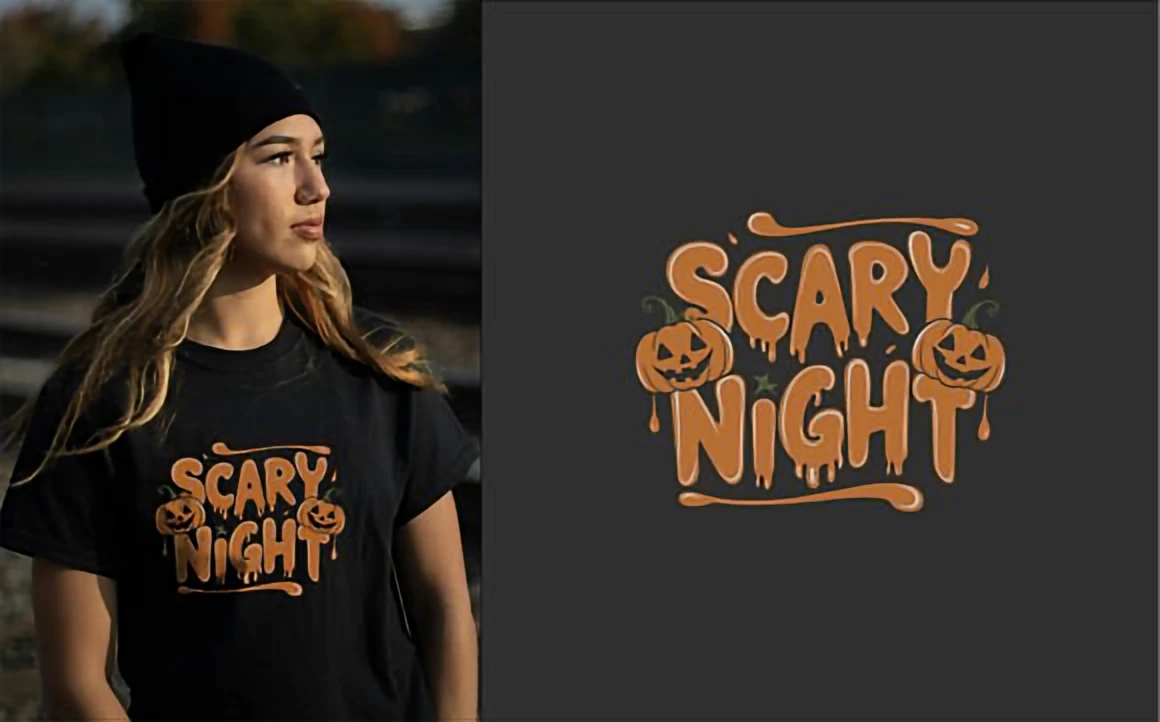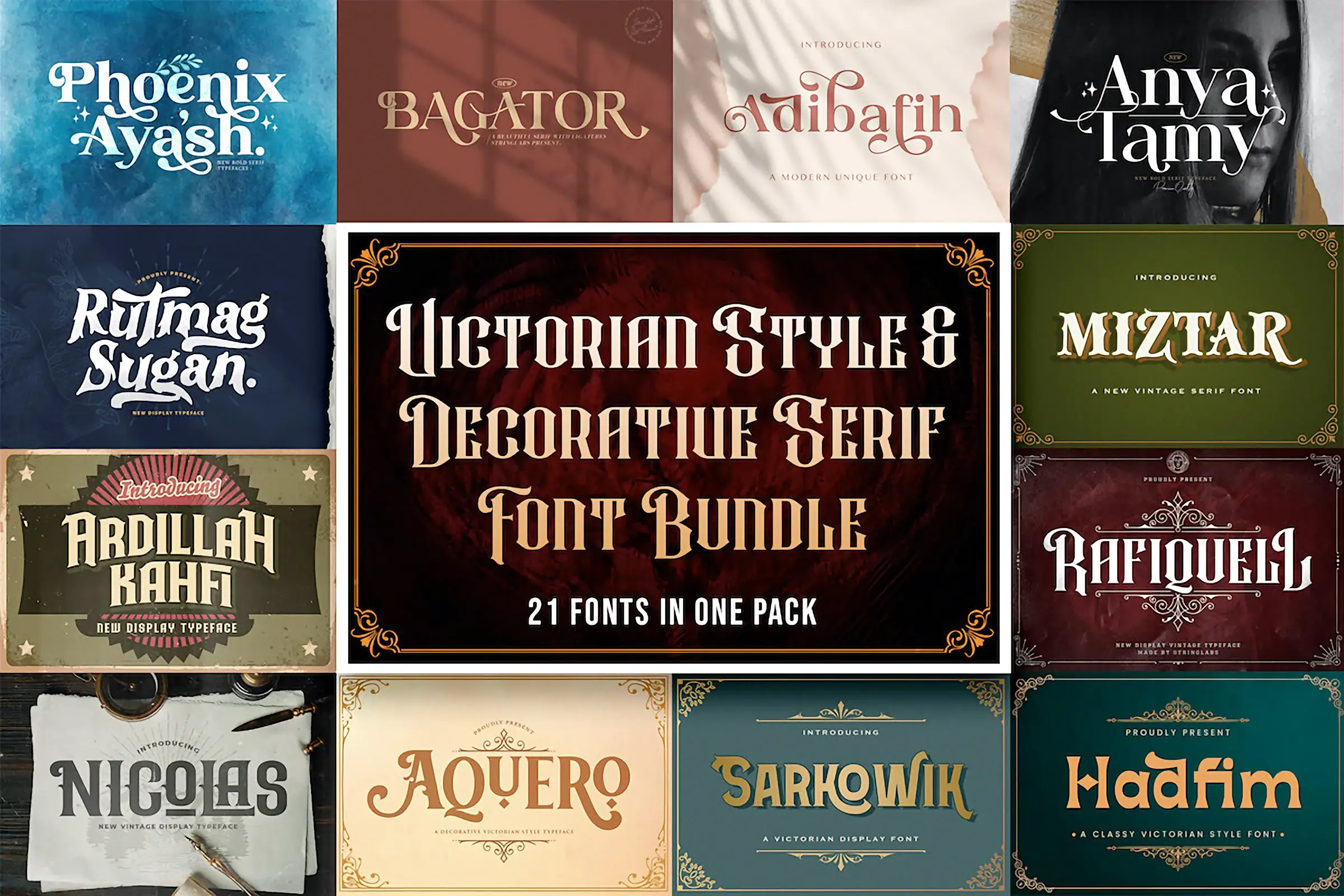
Looking for cool fonts for T-shirts? You’re in luck! Standout T-shirt designs often use eye-catching fonts, especially for retro, groovy, urban, or decorative styles. If you’re selling print-on-demand, running an Etsy shop, or doing merchandise branding, the right font can make a simple tee into something special.
Whether you’re making motivational shirts, 70s designs, grunge streetwear, boho sayings, or festival merch, this article has strong fonts that will make your projects better. Check out these T-shirt-ready fonts that really grab people’s attention.
1. Retro Thunder Font – Retro Display Script
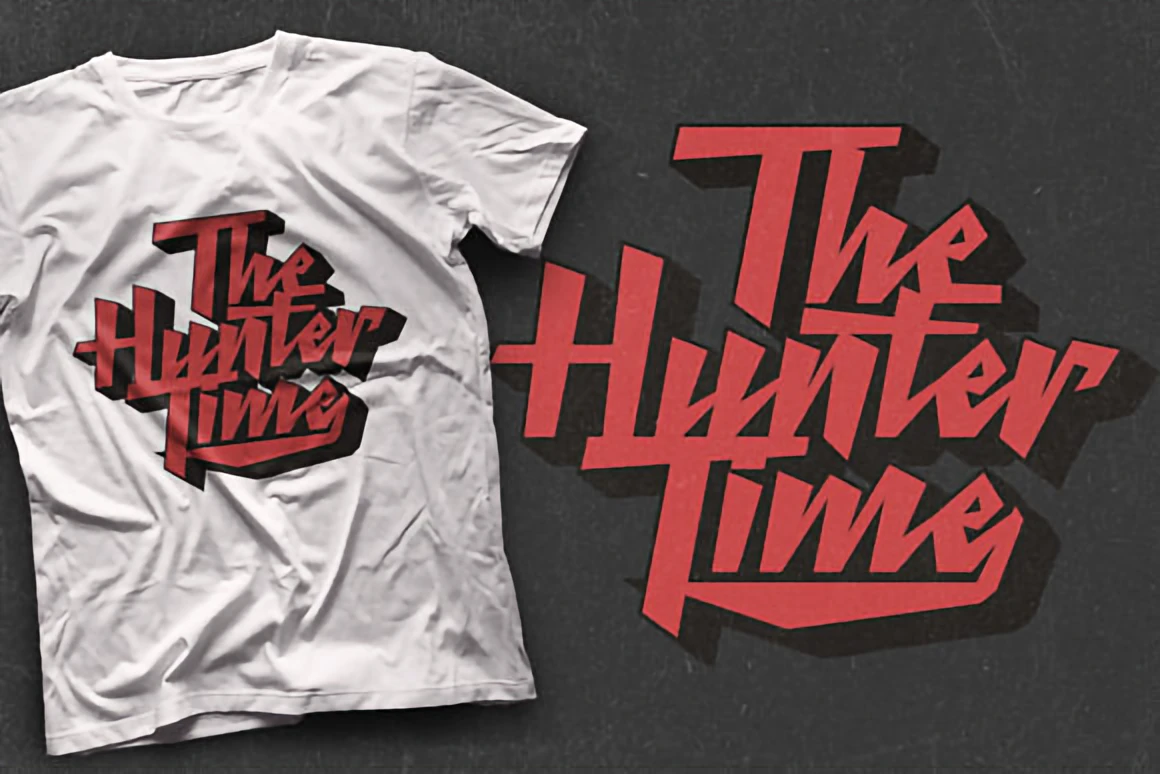
Retro Thunder Font is a cool retro script font for T-shirts wanting a bold, lively, vintage feel. Its curves and rough edges are great for apparel with an 80s or 90s look, surfwear companies, old-school sports tees, and graphics needing that hand-lettered touch. This font mixes brush script style, strong lines, and a raw, old-fashioned feel. It’s perfect for designers who enjoy using retro T-shirt fonts to create prints that pop.
Retro Thunder Font is very useful for inspirational quote tees, classic retro sayings, and branding for lifestyle brands.
Best for:
- Retro surfwear & adventure apparel
- Vintage sports T-shirts
- Hand-lettered quote tees
- Streetwear print design
Why designers love it:
- Dynamic brush movement
- Natural textured strokes
- Authentic vintage script feel
- Easy to pair with sans serif fonts
2. Big Giant – Chunky Cartoon Display
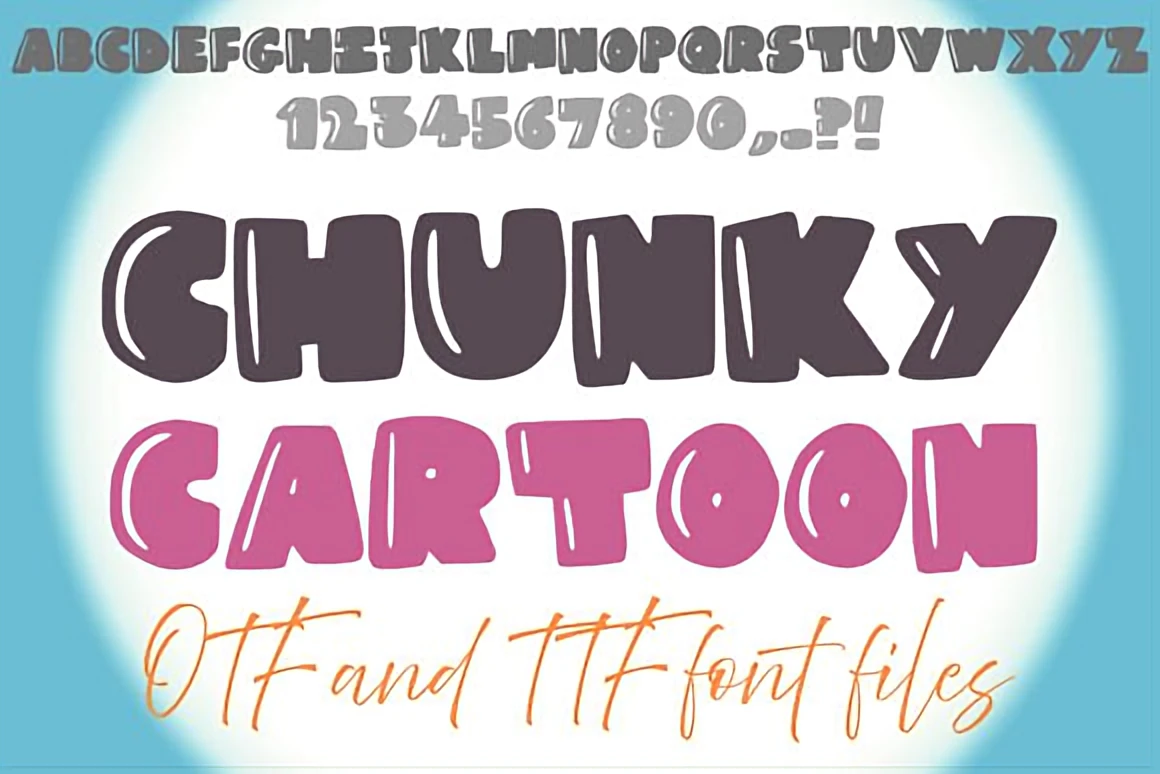
Big Giant is a fun, oversized chunky cartoon display font perfect for bold T-shirt graphics. With bubbly, rounded characters and a high-impact silhouette, it shines in kids’ designs, festival merch, urban cartoon tees, and any project needing playful display energy. This font taps into the bubble letter trend, making it one of the best creative display fonts for designers who want approachable, friendly, upbeat typography. It’s fully optimized for Cricut cutting, DTG, sublimation, and vinyl projects—making it a top choice for print-on-demand sellers.
Best for:
- Kids & family T-shirts
- Cartoon-themed apparel
- Bold motivational tees
- Kawaii & playful merch
Why designers love it:
- Big, eye-catching shapes
- Works great in one-color prints
- Cute, friendly character design
- Highly legible at large sizes
3. Varsity Team – Athletic College Serif
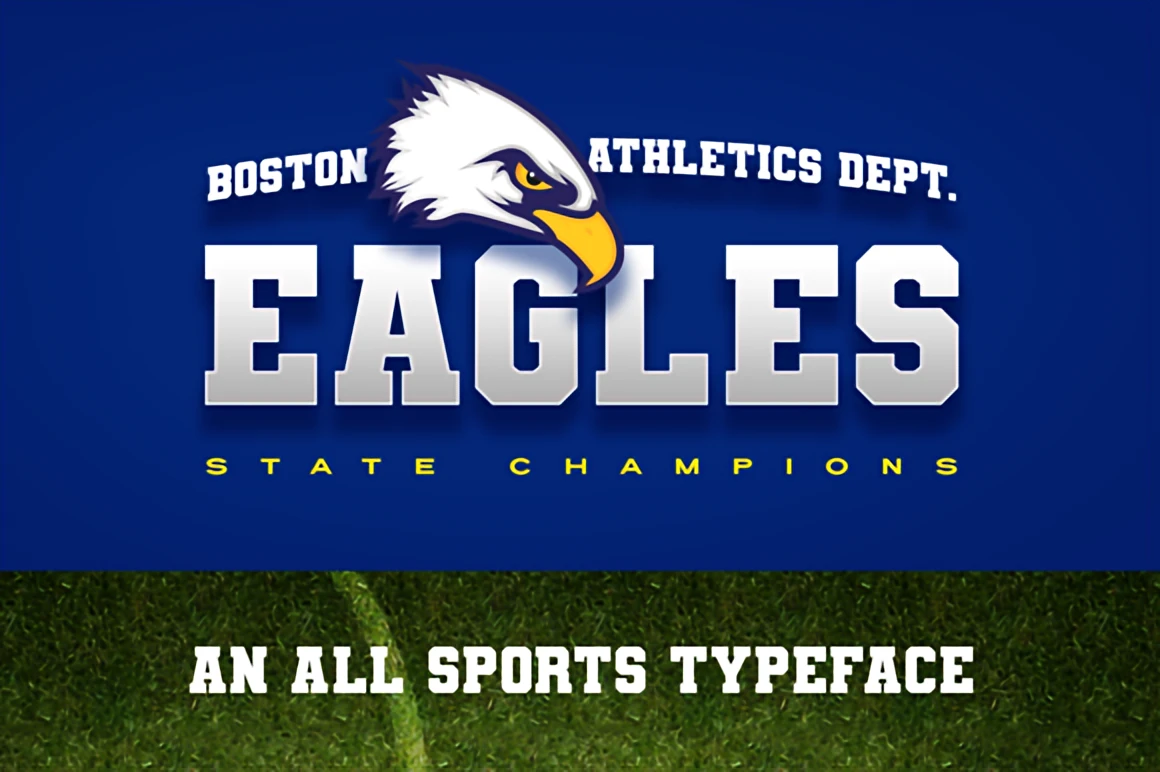
Varsity Team delivers classic collegiate display lettering, perfect for athletic-themed T-shirts. Its slab-serif geometry and varsity badge style bring the spirit of American university culture straight into your designs. This typeface is perfect for sports merch, gym apparel, team shirts, and retro athletic tees. With its blocky silhouettes and wide spacing, Varsity Team works flawlessly on oversized prints, chest badges, and vintage sportswear layouts.
Best for:
- Sports & college apparel
- Gym and fitness tees
- Athletic team uniforms
- Vintage varsity merch
Why designers love it:
- Authentic college serif design
- Strong bold display structure
- Ideal for large chest prints
- Works great with outlines & shadows
4. The Vintage Academy – Retro Badge Font
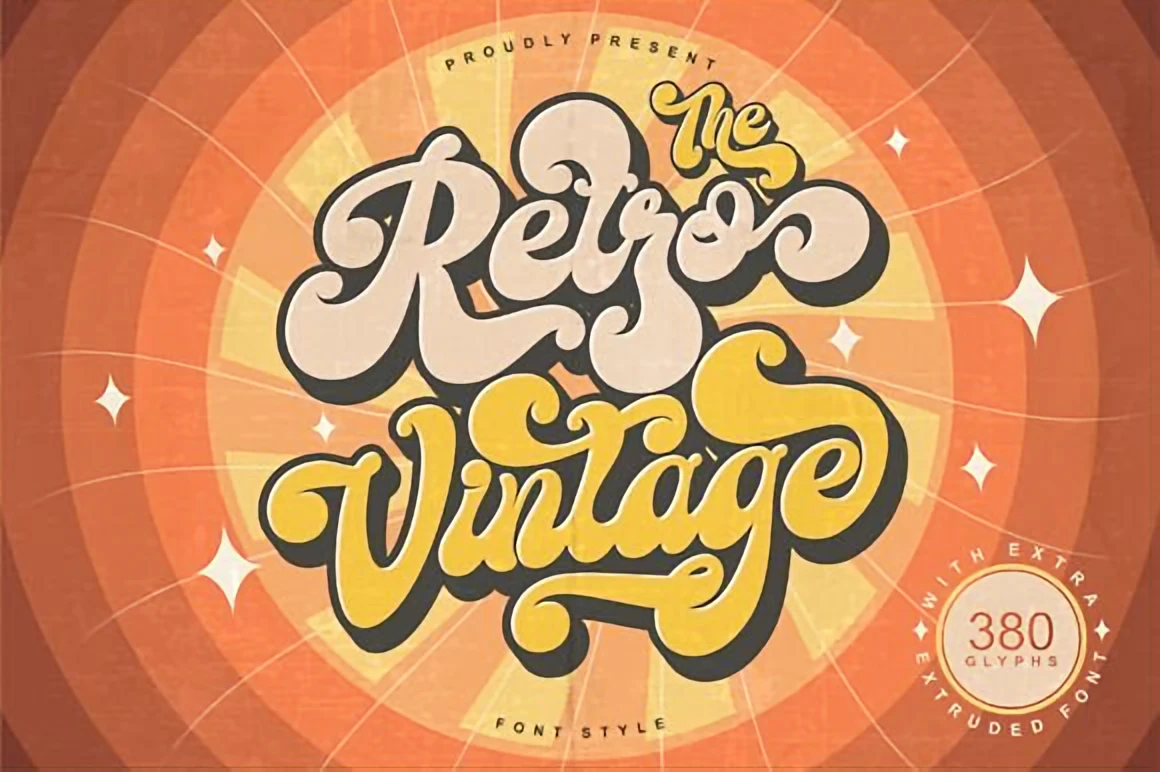
Retro Vintage is a cool font that takes its cues from the typography and lettering of the ’70s and ’80s, mixed with a bold type style. It’s great for anything vintage or retro, like badges, logos, t-shirts, posters, branding, packaging, signs, and book covers.
The font is PUA encoded, so all the cool glyphs and swashes are easy to access.
Best for:
- Outdoor & adventure shirts
- Motorcycle or biker apparel
- Retro heritage branding
- Vintage academy or club tees
Why designers love it:
- Strong masculine energy
- Works beautifully in badge shapes
- Excellent distressed texture
- Comfortable readability
5. Bullate – Bold Bubble Display
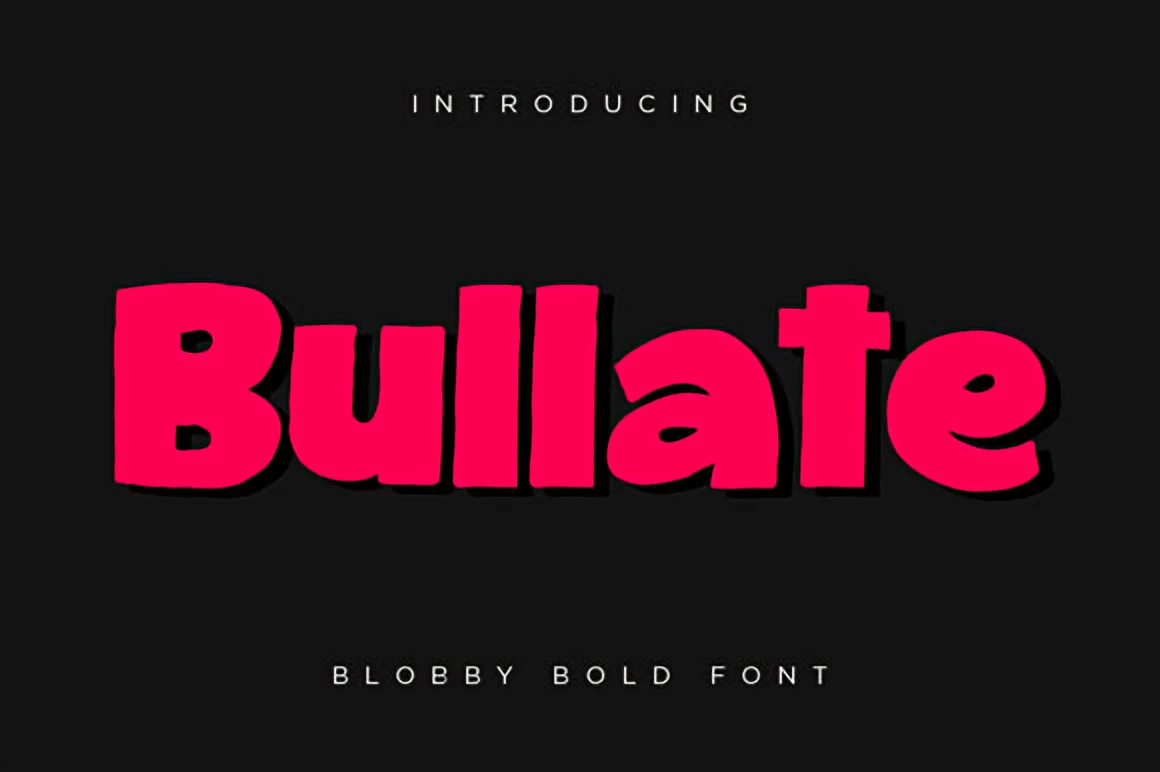
Bullate is a wildly expressive bold bubble display font that captures Y2K, groovy, and streetwear aesthetics. Its swelling curves and exaggerated shapes make it perfect for expressive T-shirt slogans, festival graphics, summer tees, and bold merchandise collections. It’s eye-catching, vibrant, and ideal for designers who love highly stylized creative display fonts for T-shirts.
Best for:
- Groovy retro tees
- Festival and rave apparel
- Trendy youth merch
- Kawaii and bubble-style designs
Why designers love it:
- Extremely bold visual impact
- Perfect for colorful or outlined styles
- Fun, upbeat personality
- Easy to manipulate for custom layouts
6. Retro 70s Font – Psychedelic
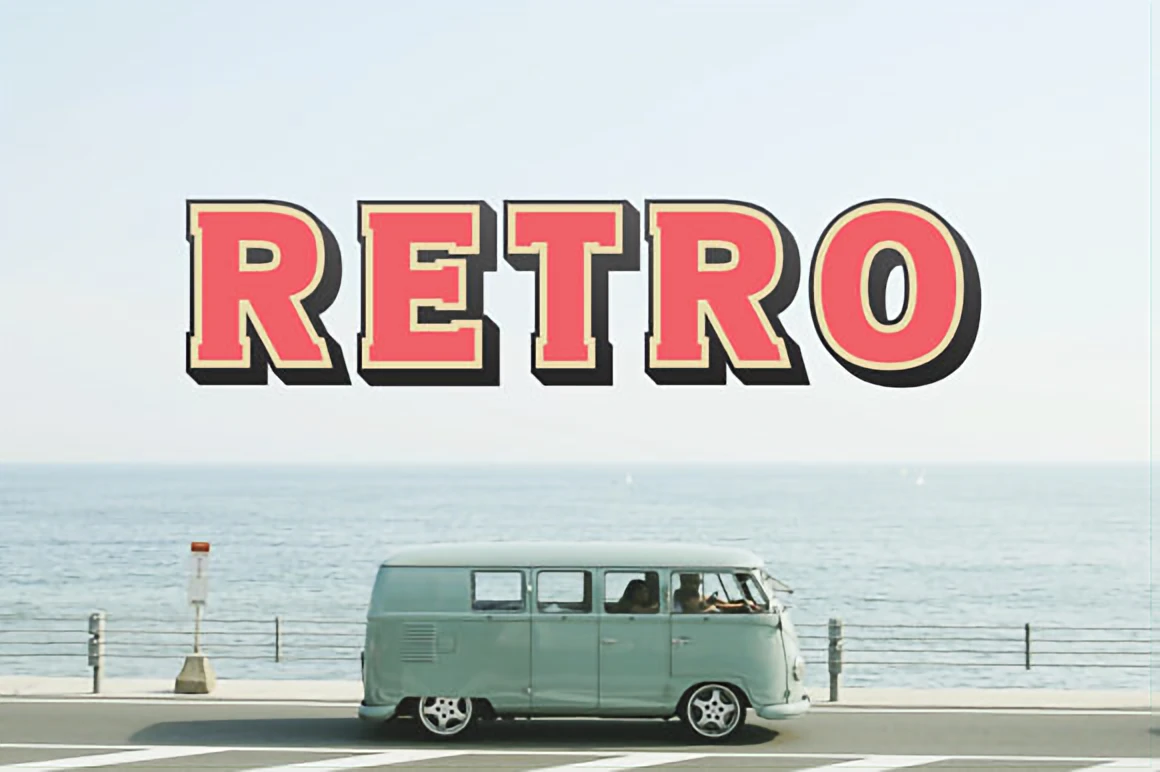
Retro 70s is a cool display font that’s sure to get noticed. Try it out on your projects and see how it makes them pop!
5: How do I choose fonts for vintage vs. modern T-shirts?
Use textured, serif, or script fonts for vintage; use geometric and bold sans styles for modern.